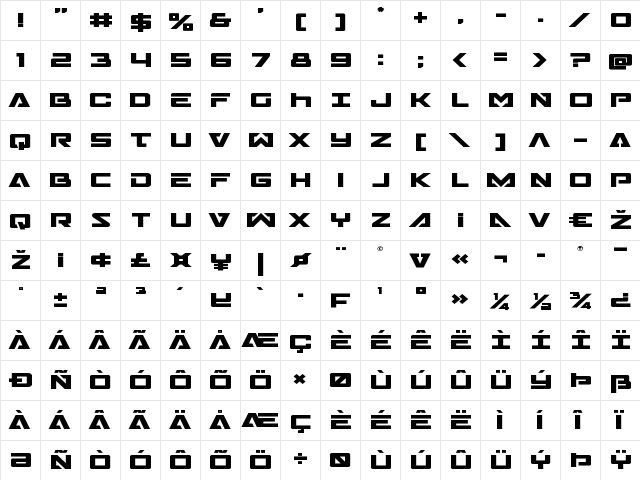
Trans-America Expanded Font Preview
Trans-America Expanded Expanded
Trans-America Expanded Font Details
Design Context for Trans-America Expanded Typeface
Trans-America Expanded is a composed and adaptable typeface that performs quietly and consistently across a wide range of design contexts.